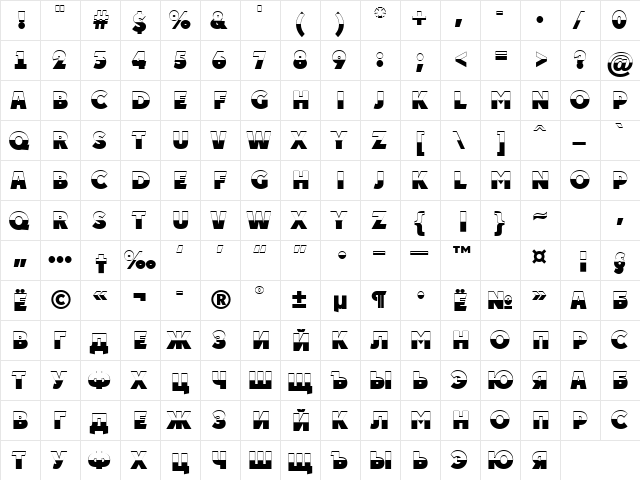
a_PlakatTitulB&W ExtraBold
Design Context for a_PlakatTitulB&W Typeface
a_PlakatTitulB&W takes a measured approach to typography — its balanced proportions and neutral character make it a reliable workhorse for both digital and print work. The heavy weight commands attention and anchors typographic hierarchies.